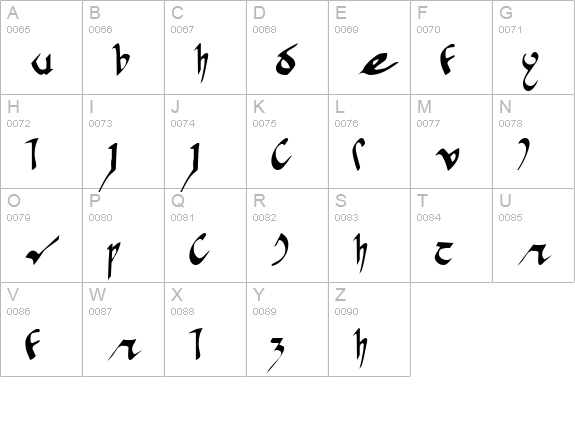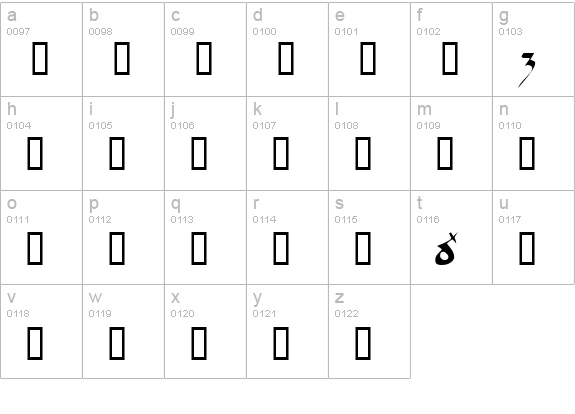
Crivar Font Details
Crivar font is a stunning display typeface that exudes elegance and sophistication. With its unique blend of sharp edges and flowing curves, Crivar effortlessly captures attention and adds a touch of luxury to any design project. This versatile font is perfect for branding, headlines, and editorial designs that require a bold statement. What sets Crivar font apart is not just its striking aesthetics, but also the fact that it is available for free download at FontsMarket.com. Designers and creatives can easily access this beautiful typeface and incorporate it into their work without any cost. Embrace the allure of Crivar font and elevate your designs with its timeless appeal.